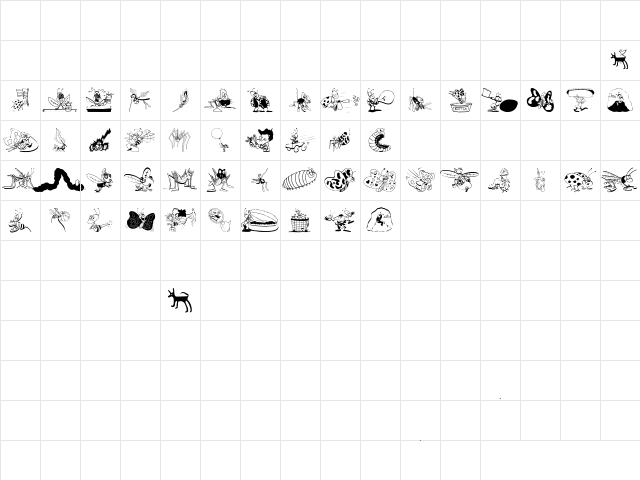
OurLittleDarlings-One Regular Free Font
OurLittleDarlings-One Regular
Design Context for OurLittleDarlings-One
OurLittleDarlings-One is a composed and adaptable typeface that performs quietly and consistently across a wide range of design contexts.